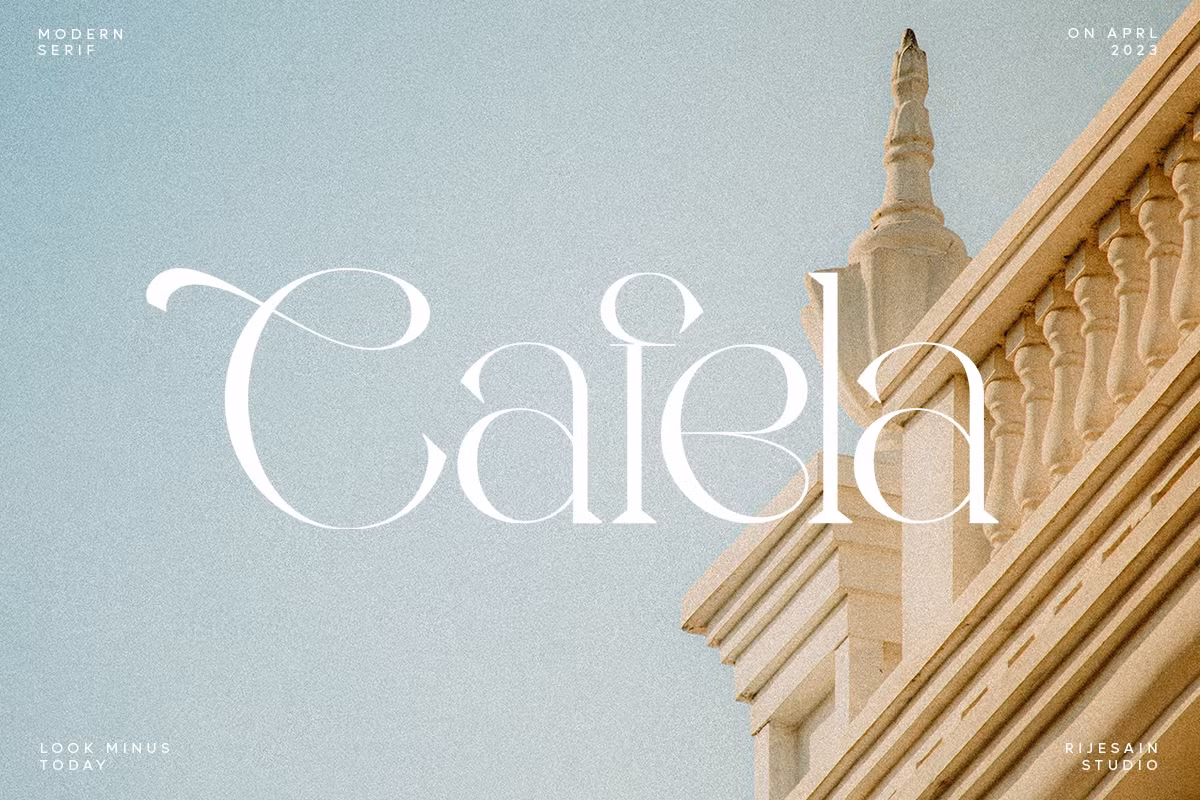
Cafela - Modern Ligature Serif Free Download
Cafela – Modern Ligature Serif Font Free Download is a refined and fashionable typeface that blends contemporary style with classic serif charm. Please note, you are required to purchase this font for commercial use. It is available for free download for testing and personal projects only.
Designed with elegant ligatures and stylish curves, Cafela is perfect for branding, editorial design, fashion campaigns, packaging, and wedding stationery. It adds a luxurious and artistic touch to your layouts while maintaining readability and modern flair.